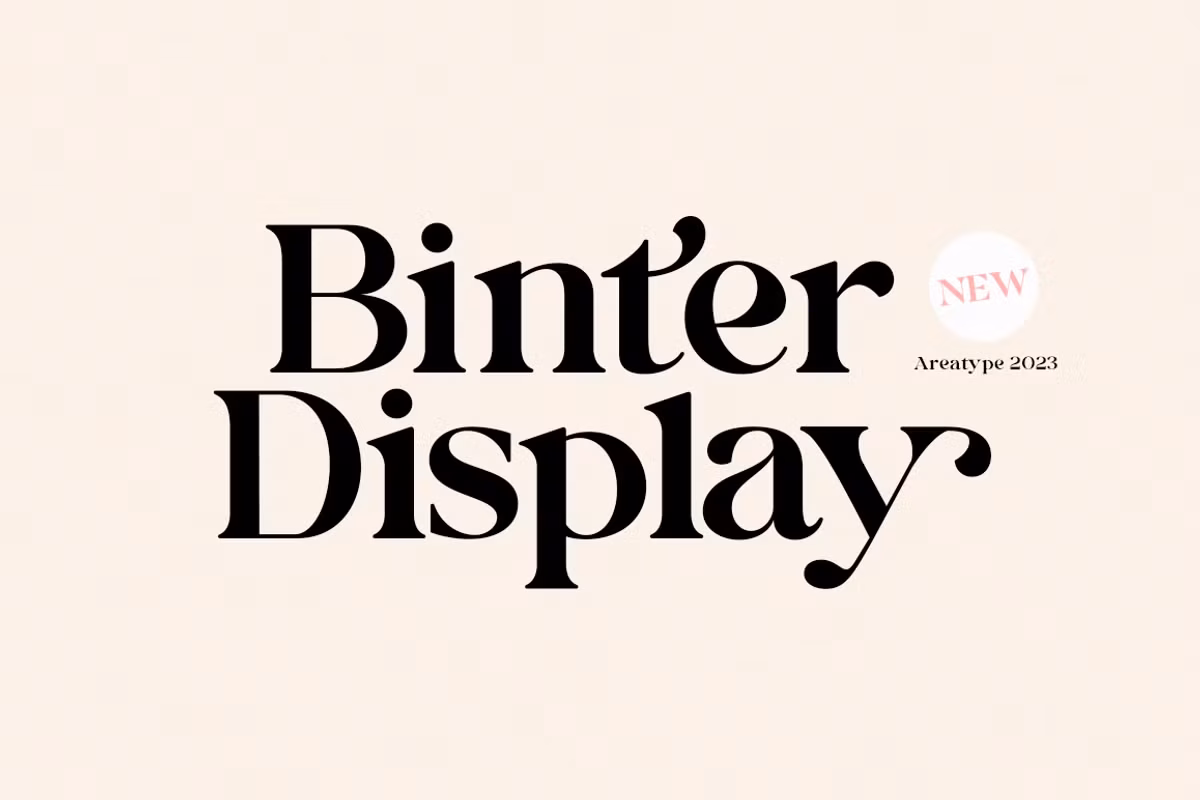
Binter Display Font Free Download is a classy serif typeface designed to make a bold and elegant statement. With its high contrast strokes, refined details, and luxurious character shapes, Binter Display is perfect for premium branding, fashion editorials, packaging, invitations, and upscale web design.
This font brings sophistication and presence to your typography, making it ideal for standout headlines and stylish logos. It includes uppercase and lowercase letters, numerals, punctuation, and beautiful ligatures—giving you full creative flexibility for both digital and print use.
Whether you're building a luxury brand or designing a high-end editorial layout, Binter Display Font Free Download offers the elegance and boldness needed to elevate your visuals. Feel free to test it in personal or concept projects, and don’t forget to purchase the proper license for commercial use. Make a lasting impression with the refined beauty of this classy serif font.